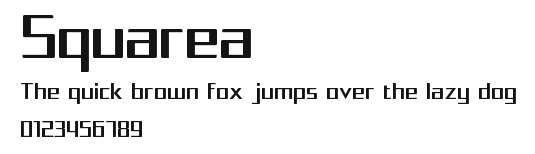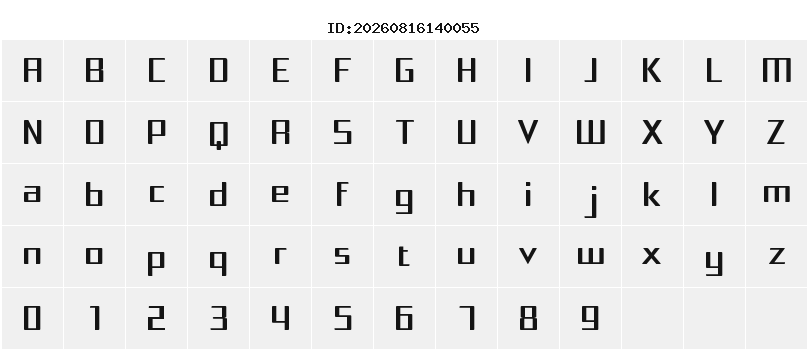
• Font Name: Squarea
• Full Font Name: Squarea
About Squarea.ttf
Squarea.ttf is a modern, elegant sans-serif font designed for ultimate readability and visual harmony. Perfect for branding, headlines, web design, and print materials.